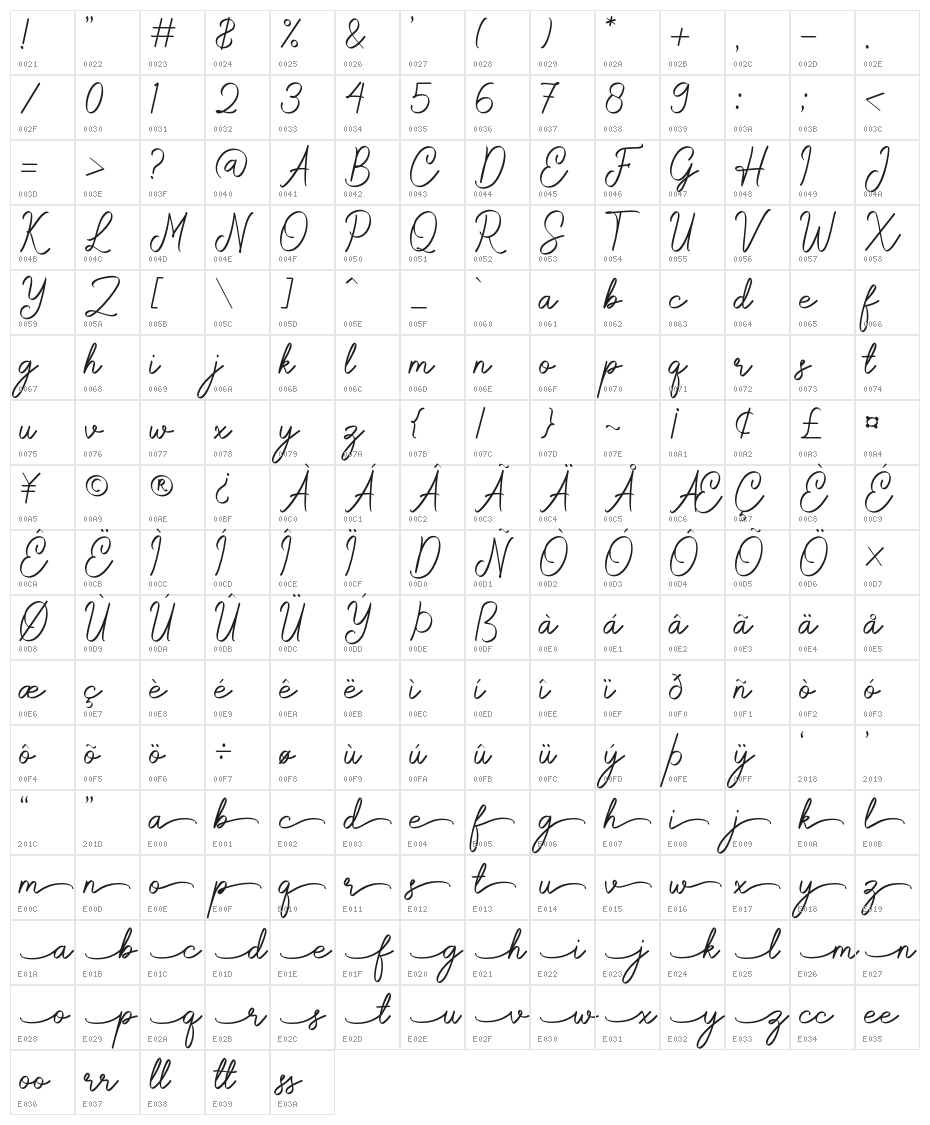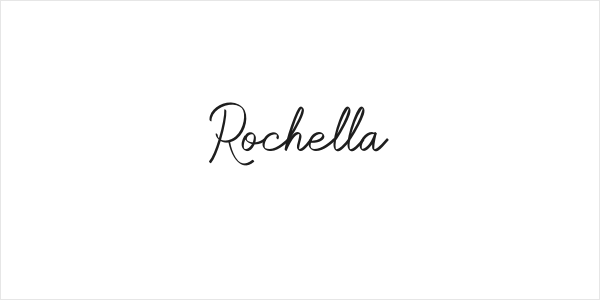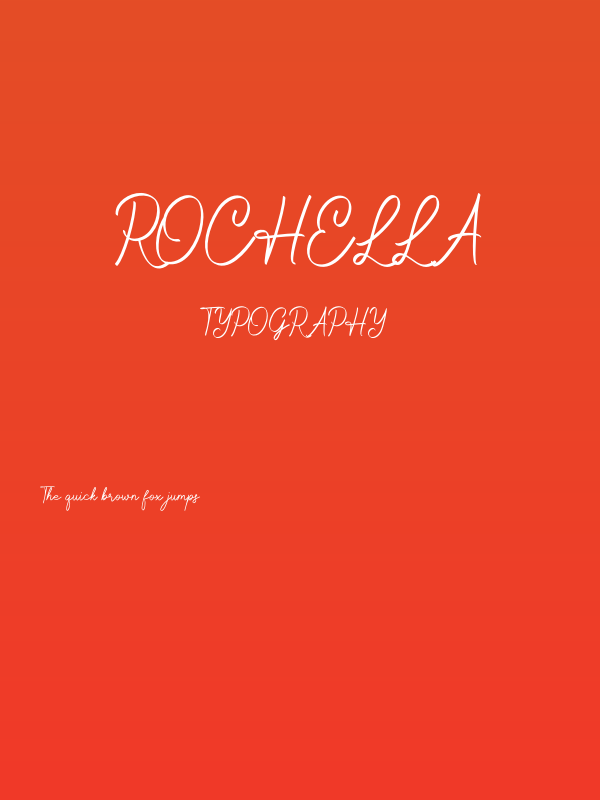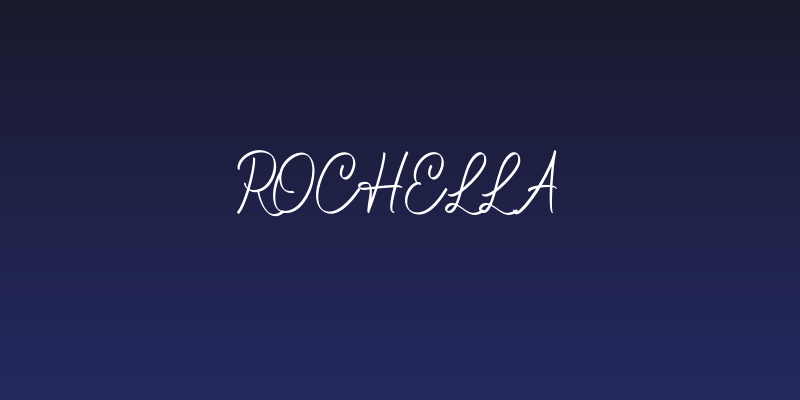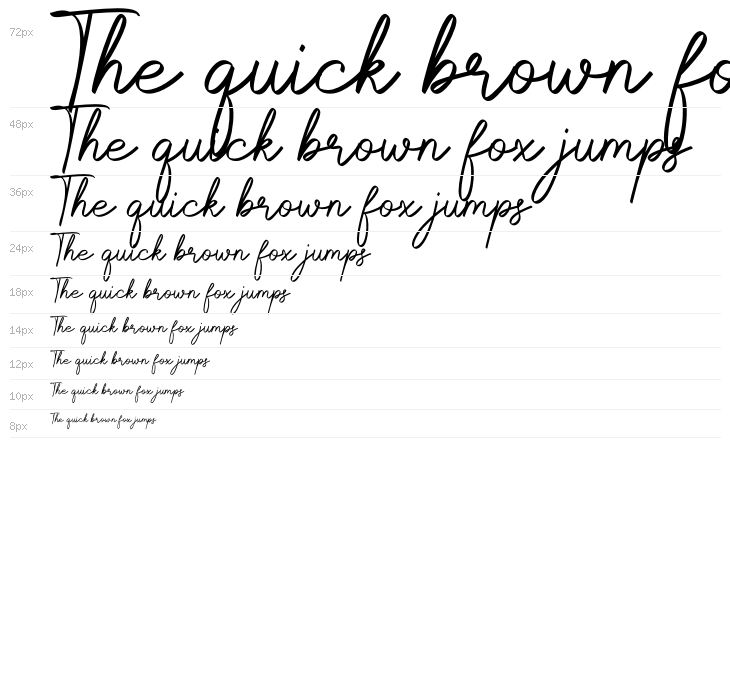
Rochella Font
| Stile generale | Elegant, Handwritten |
| Caso d'uso | Headlines, Invitations, Branding |
| Progetti proposti | Ideal for wedding invitations, personal branding, greeting cards, and elegant packaging designs. |